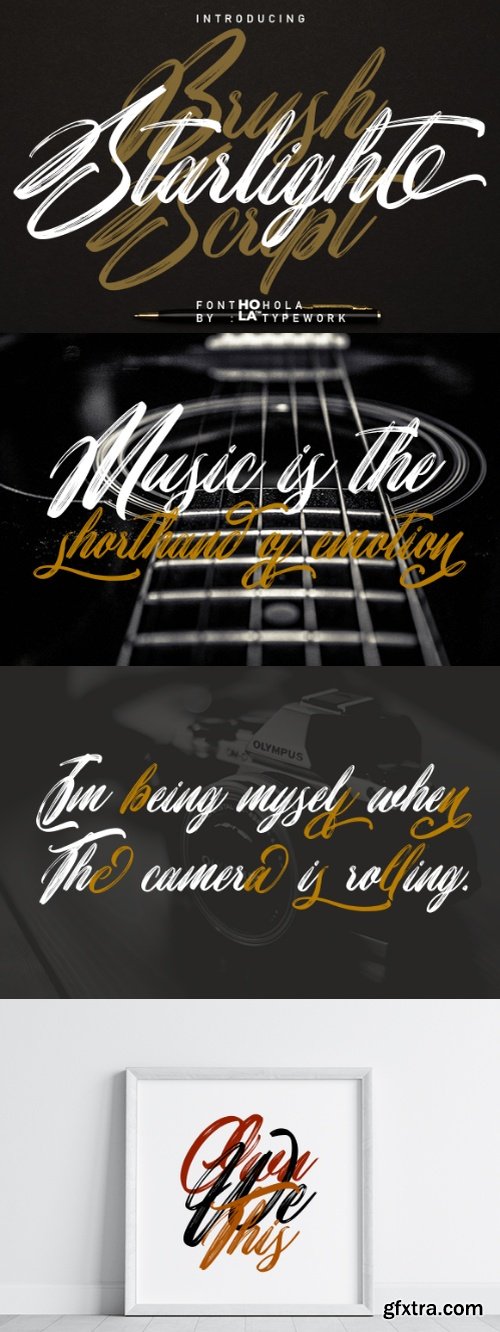
Starlight Font
- Introducing Starlight, an authentic Brush Script font. Individually crafted and teeming with a signature style that stands out, Starlight is the perfect addition to your design toolkit. Whether it’s to accentuate your project designs, breathe life into advertisements, give a stylish twist to t-shirts, or underpin logos and brands, Starlight holds unlimited potential to uplift and greatly enhance the aesthetics of your creations. It isn’t just a font, it’s an expression of your uniqueness.